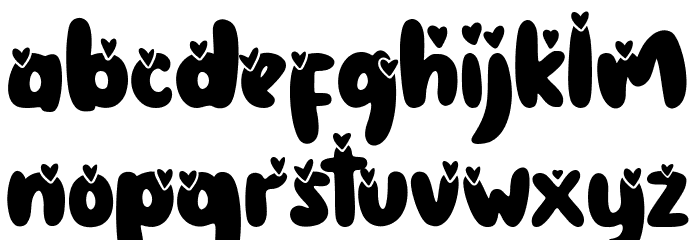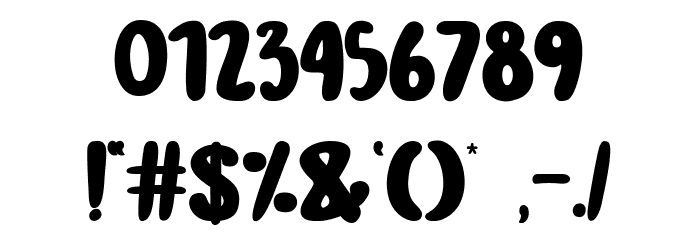
The Coconut love Font
This playful and whimsical font features bold, rounded characters adorned with heart motifs, giving it a charming and romantic feel. The letters are thick and substantial, with a consistent stroke width that adds to its bold appearance. The heart embellishments are integrated into the design, often appearing at the top of the letters, adding a unique and decorative touch. This font is highly decorative and stands out with its distinctive style, making it perfect for projects that require a fun and loving aesthetic.
A bold, heart-adorned decorative font with a playful and romantic style.
- Proposed Projects: Ideal for Valentine's Day cards, wedding invitations, love-themed posters, and playful branding projects.
- Overall Style: Playful, Romantic, Decorative
- Use Case: Headlines, Logos, Decorative text